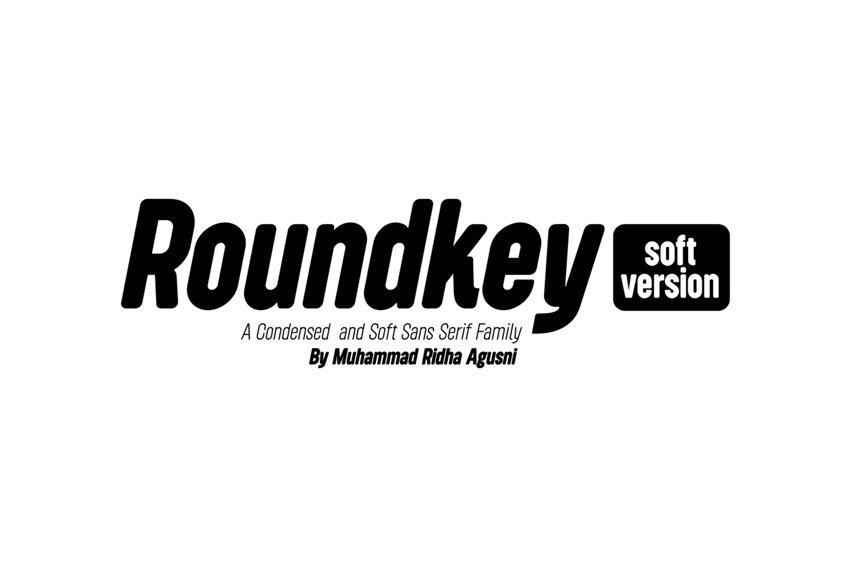
Roundkey Soft Version Font is the soft version of Roundkey. get this font to enrich your design alternatives.
It has six weights from Thin to Bold with matching oblique. Its perfect choice for Professional design